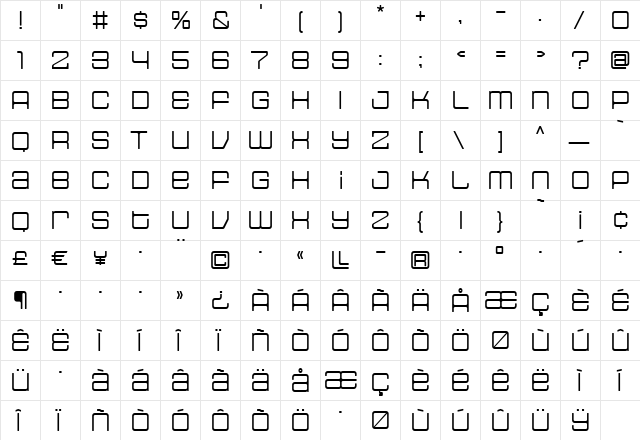
HOUSE3009 Light
Design Context for HOUSE3009 Typeface
HOUSE3009 offers clean, dependable letterforms without strong stylistic allegiance, making it a practical choice for designers who need flexibility. The delicate stroke weight brings airiness and refinement to layouts.